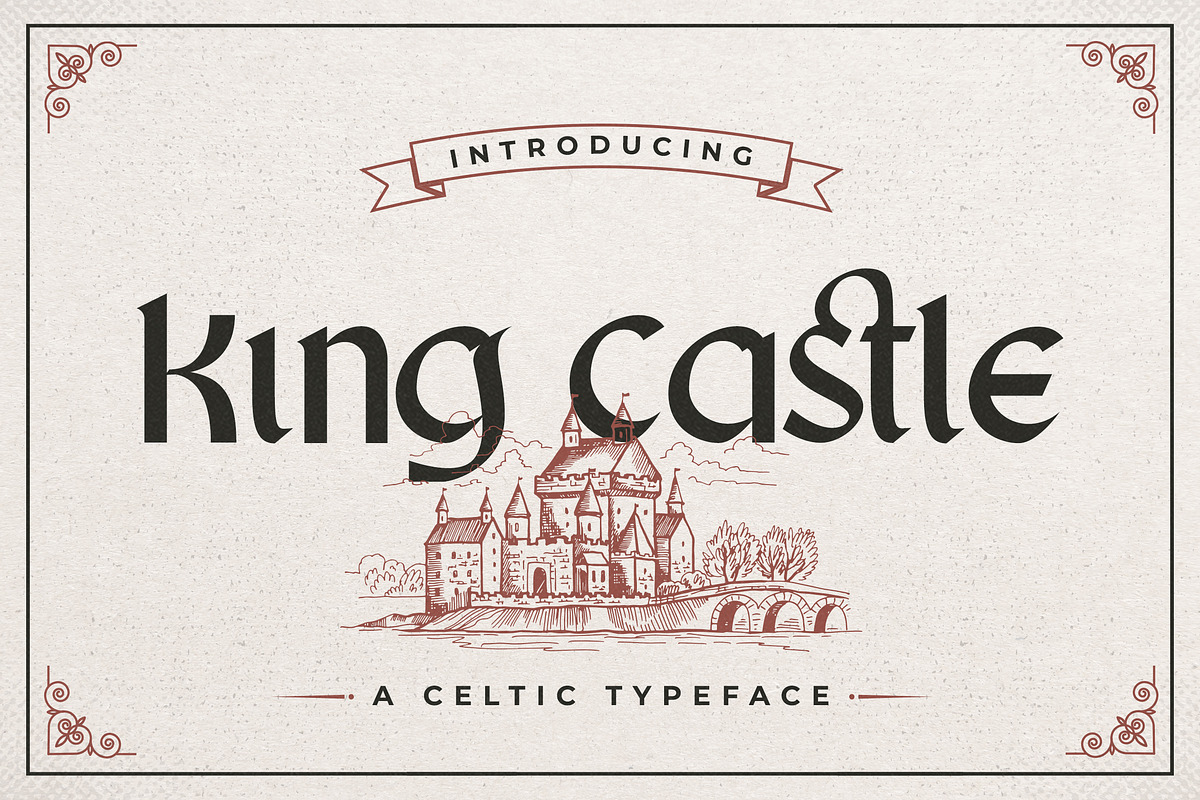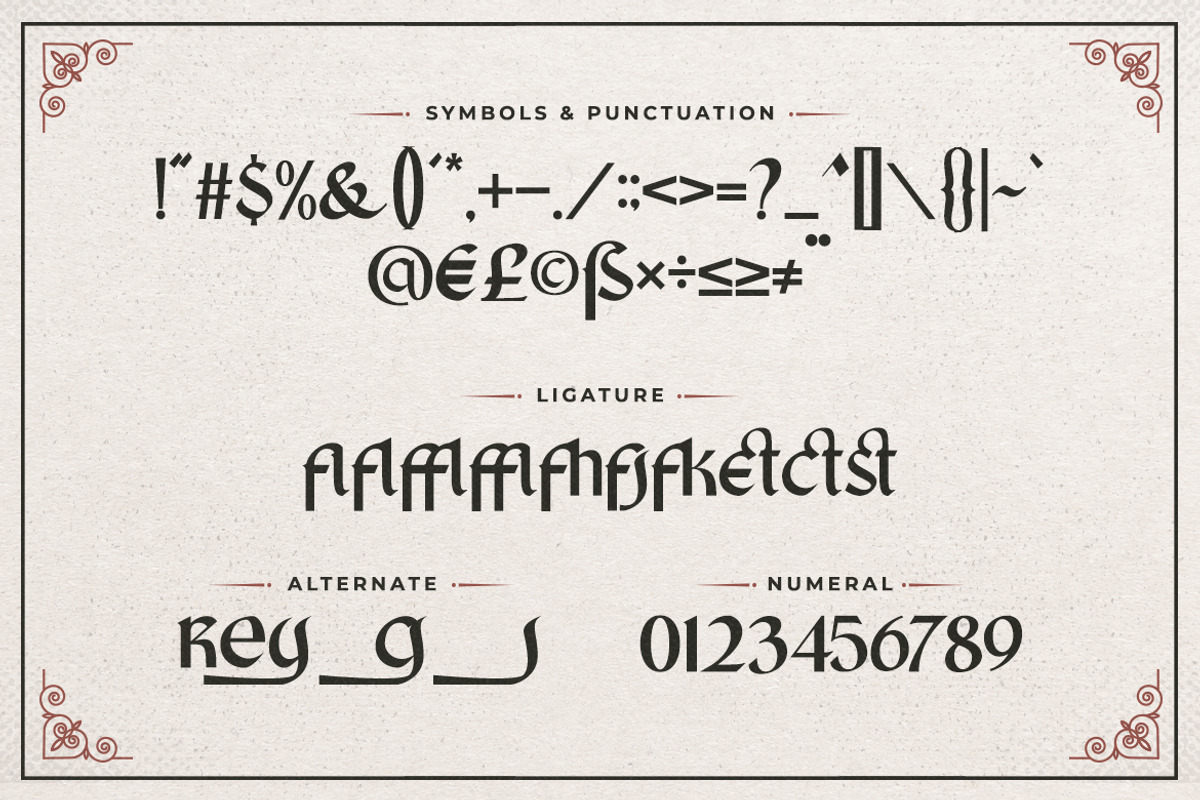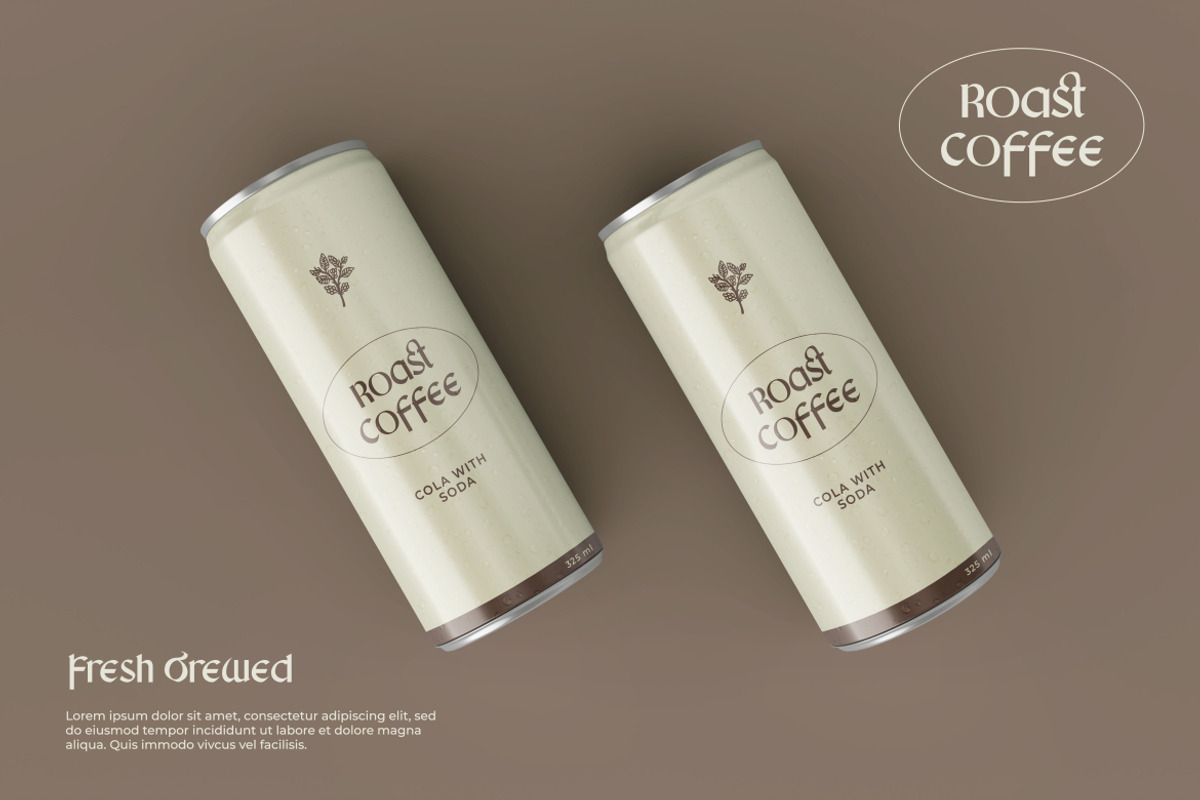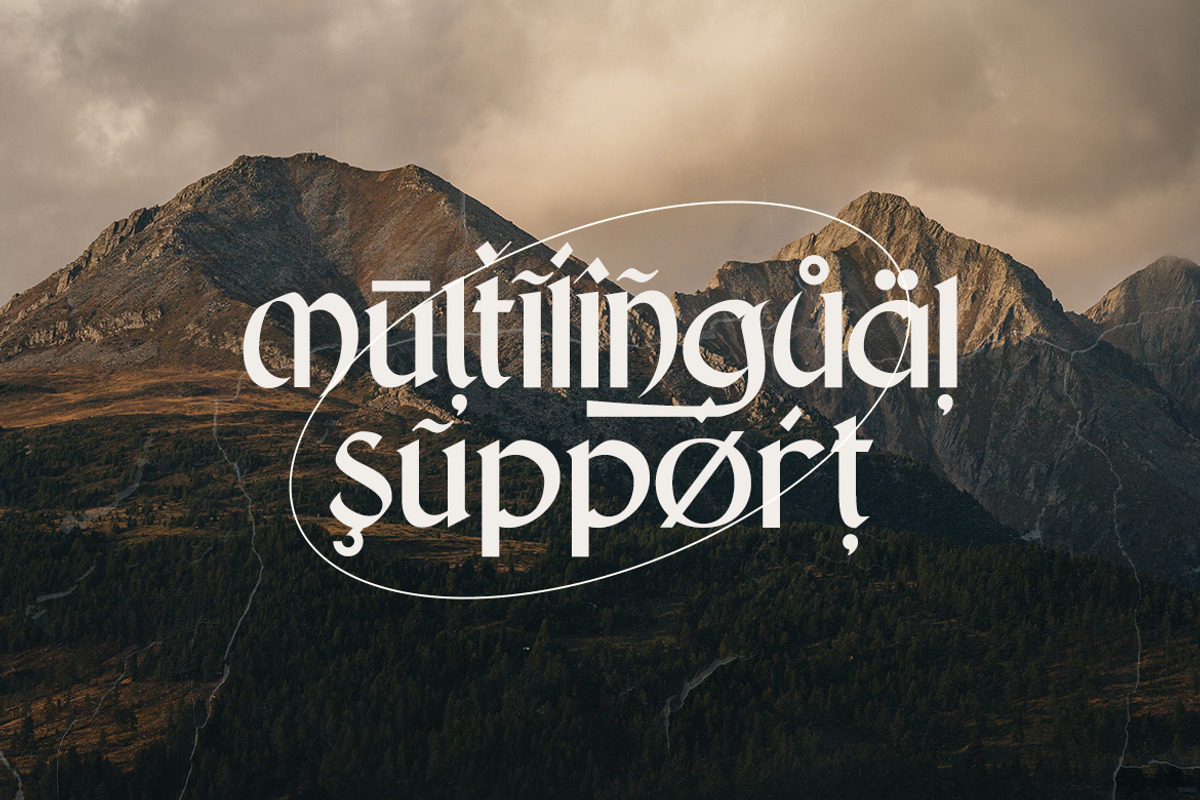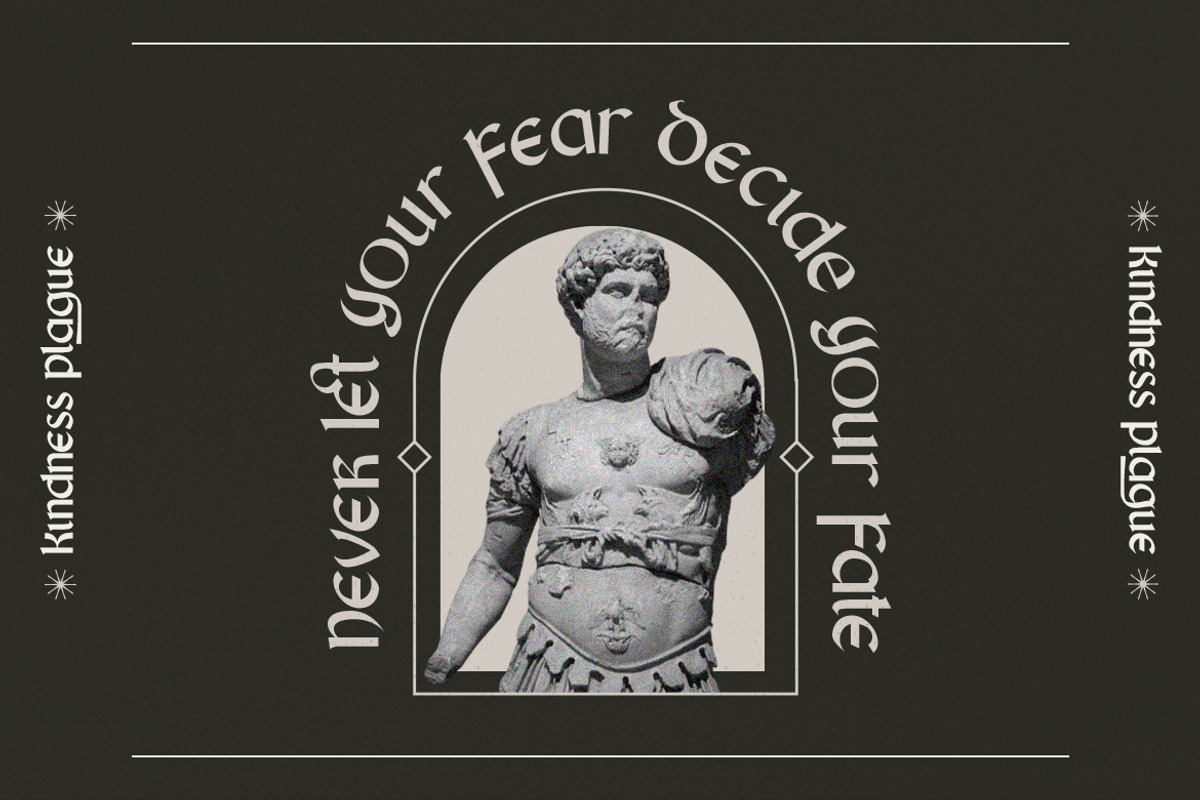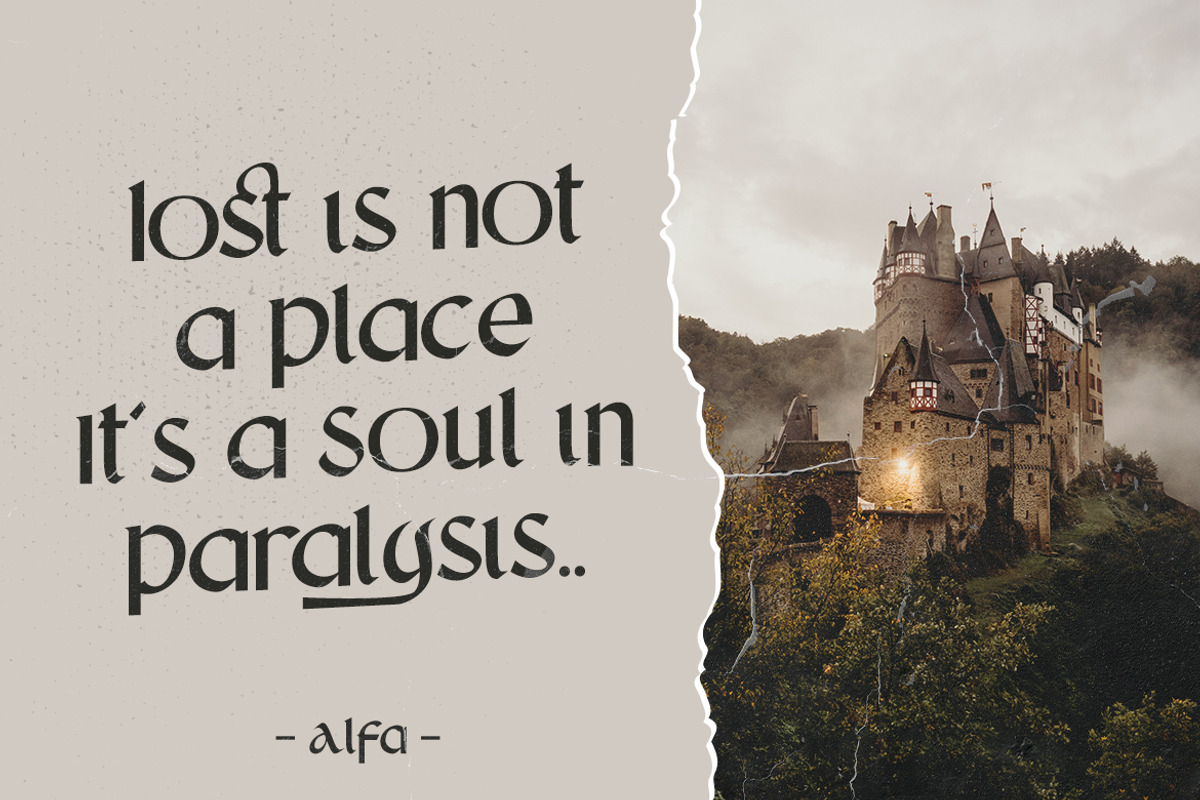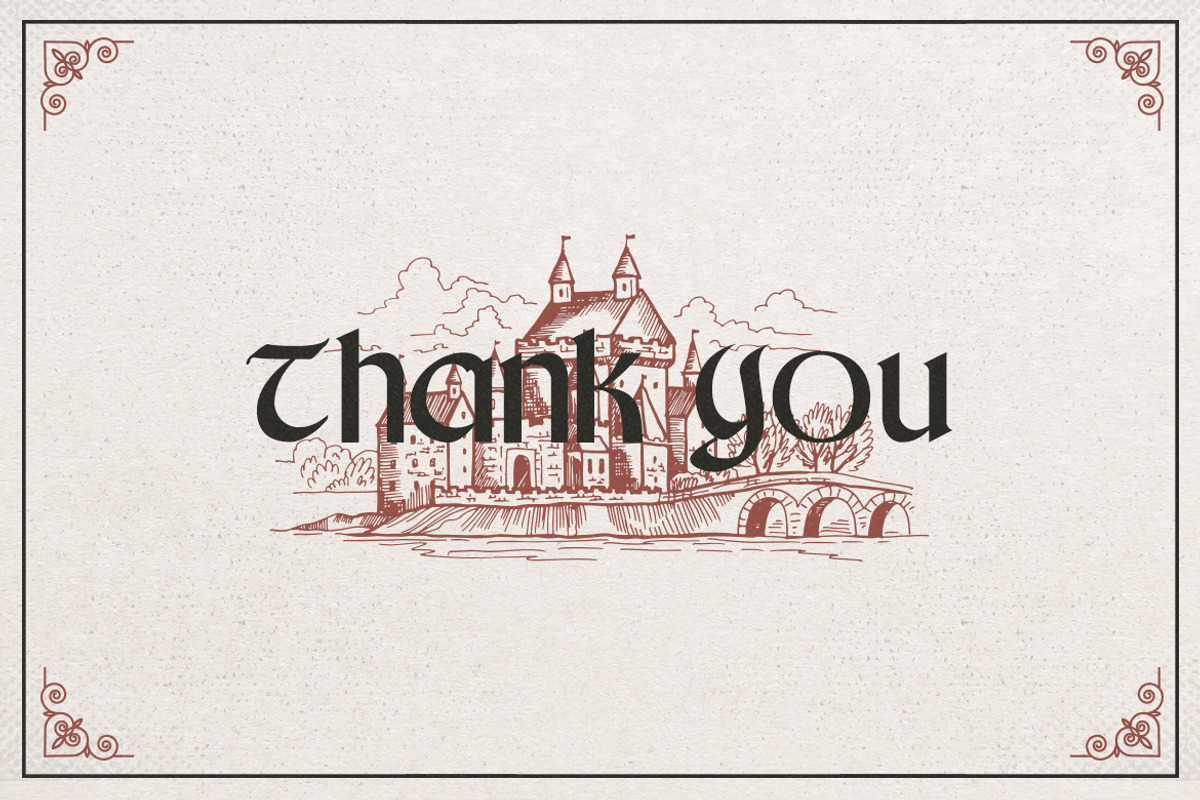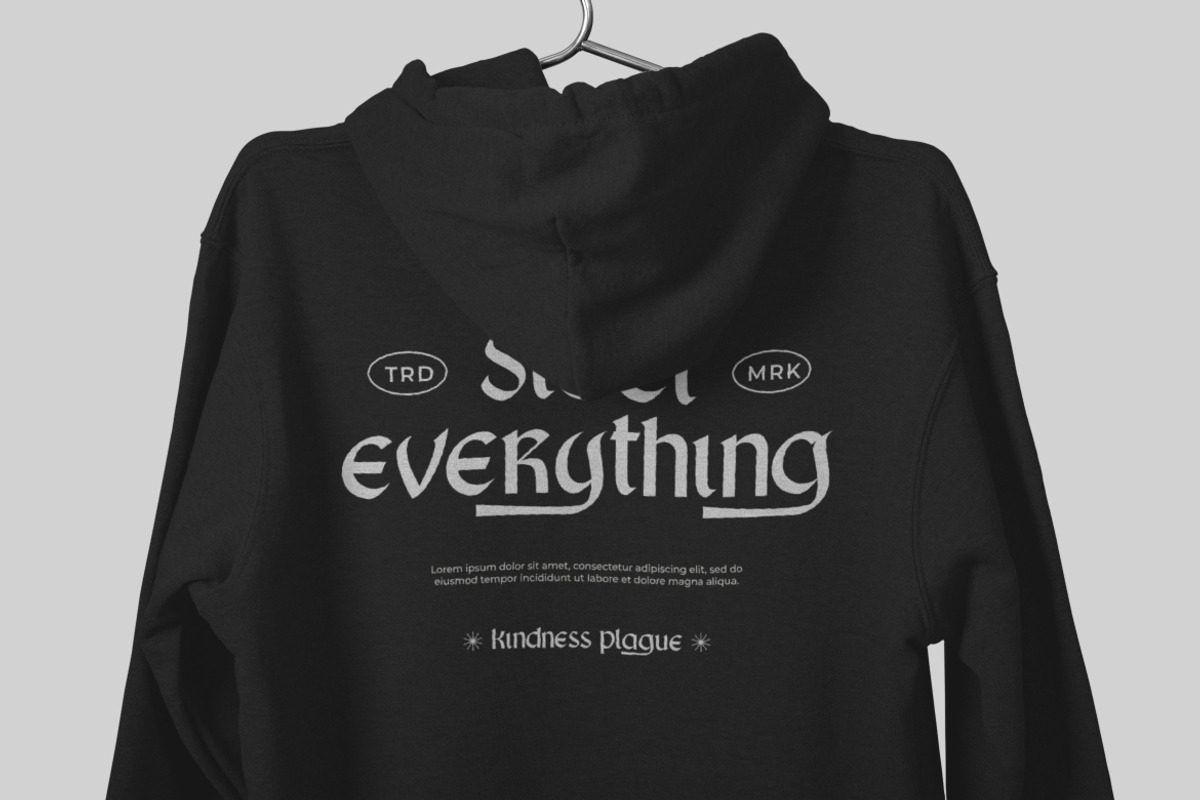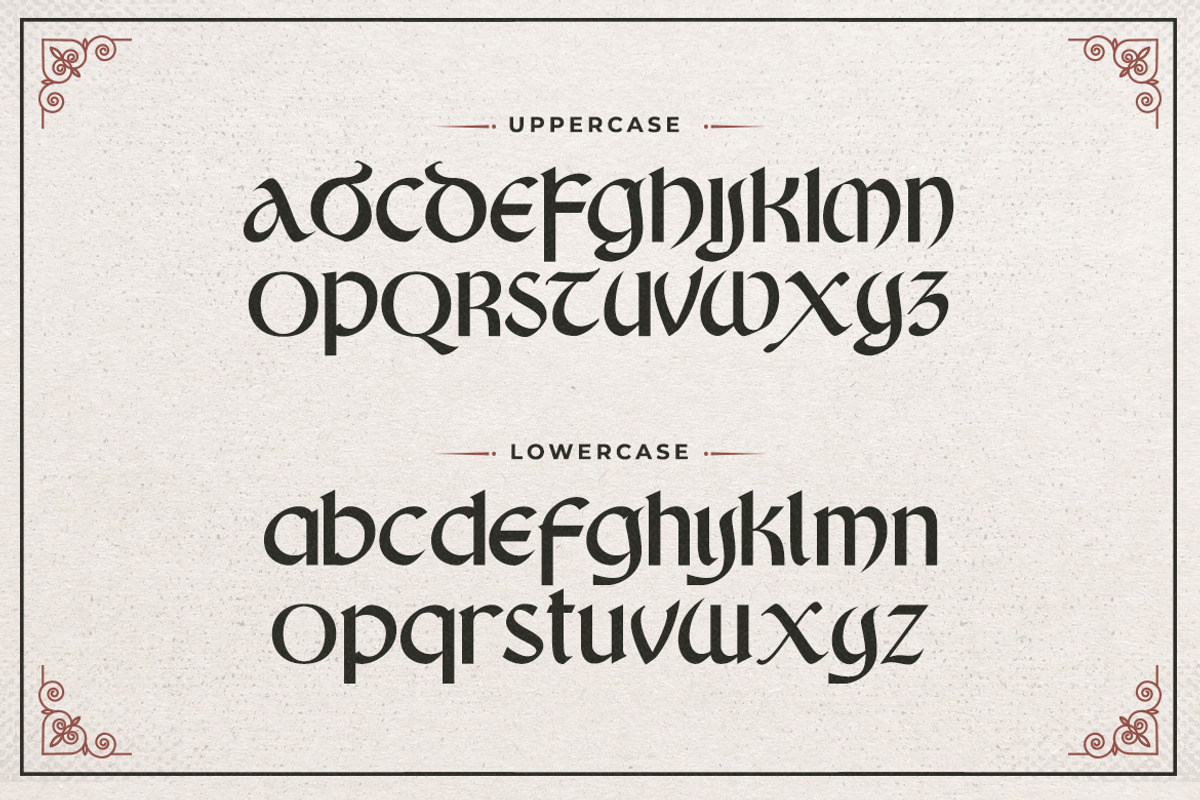
King Castle - Celtic Font
An elegant Celtic style font,. This unique display typeface is inspired by celtic styles. The original look will appeal to a wide range of crafty ideas, from letterheads and titles, to stationery.
- Symbols & Punctuation
- Numeral